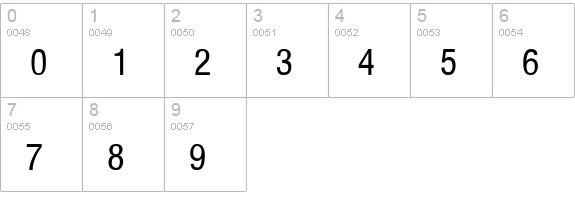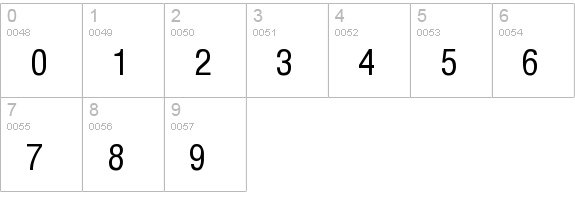
Partridge-Condensed-Thin is a delicate, low-contrast, condensed-width variant in the Partridge typeface family \xE2\x80\x94 well suited to fashion editorial, minimal branding, and high-contrast display.
Introducing Partridge-Condensed-Thin, a sleek and elegant font that exudes sophistication and modernity. With its slender and refined letterforms, this typeface is perfect for projects that require a delicate touch and a contemporary aesthetic. Partridge-Condensed-Thin stands out with its clean and minimalistic design, making it highly versatile and suitable for a wide range of applications. Whether you're designing a logo, creating a stylish website, or crafting eye-catching marketing materials, this font will effortlessly elevate your work to new heights. This font's thin strokes and condensed proportions lend a sense of elegance and professionalism, making it an excellent choice for branding and corporate identity projects. Its versatility extends to editorial designs, where it adds a touch of sophistication and readability to magazines, books, and newspapers. The beauty of Partridge-Condensed-Thin lies not only in its visual appeal but also in its legibility. Each letter is meticulously crafted to ensure maximum clarity, even at small sizes. This makes it an ideal choice for projects that require both style and functionality. And the best part? Partridge-Condensed-Thin is freely available to download at FontsMarket.com. Whether you're a professional designer, a student, or simply an enthusiast, this font is accessible to all, allowing you to bring your creative visions to life without any limitations. So why wait? Enhance your designs with the timeless elegance of Partridge-Condensed-Thin. Download it now and explore the endless possibilities this font has to offer.